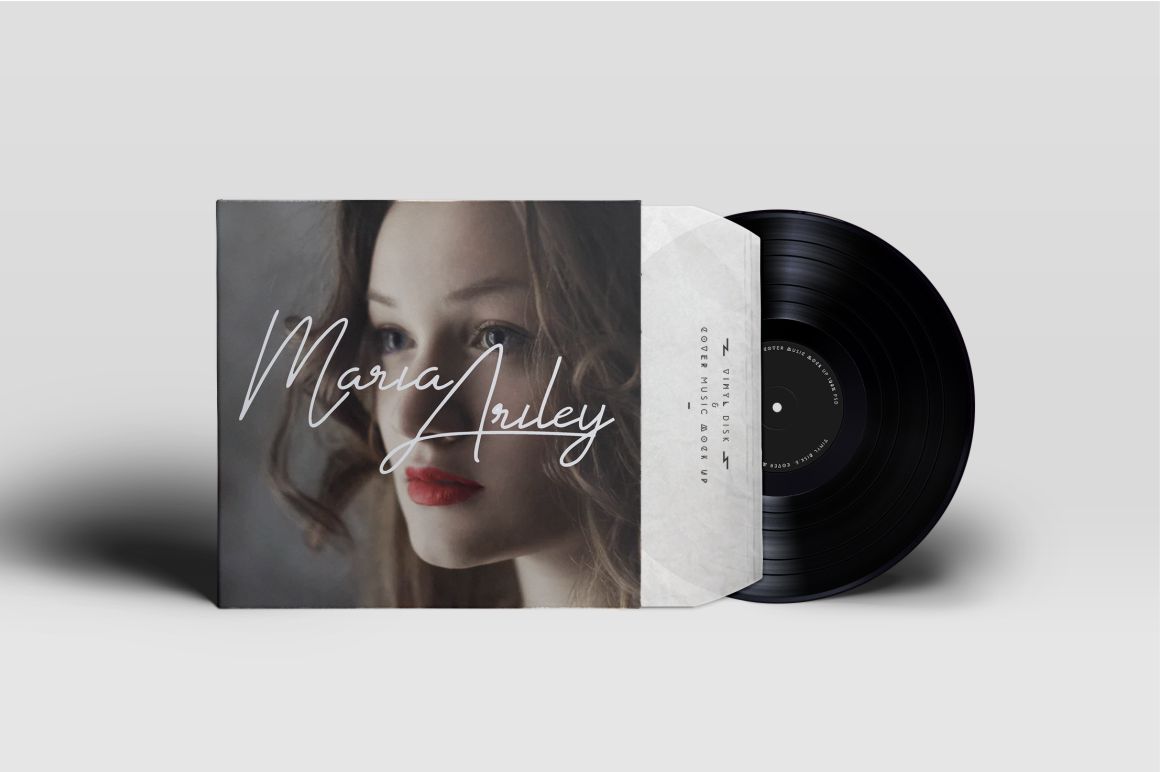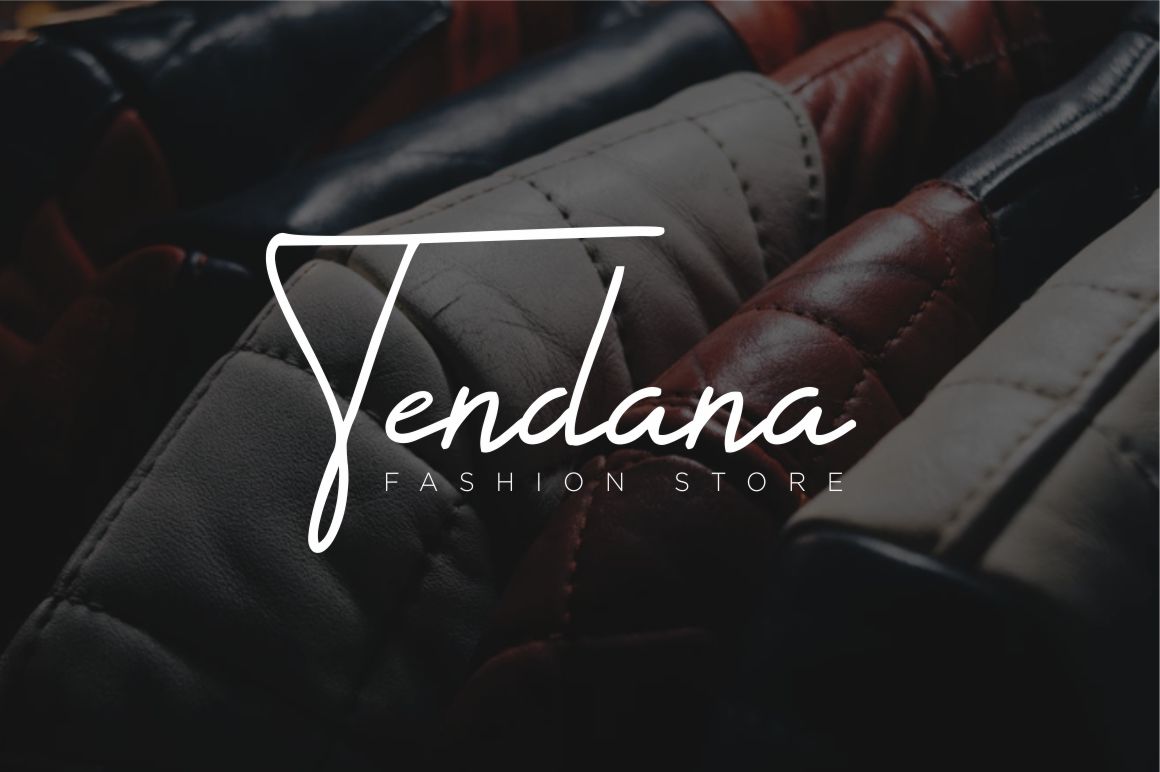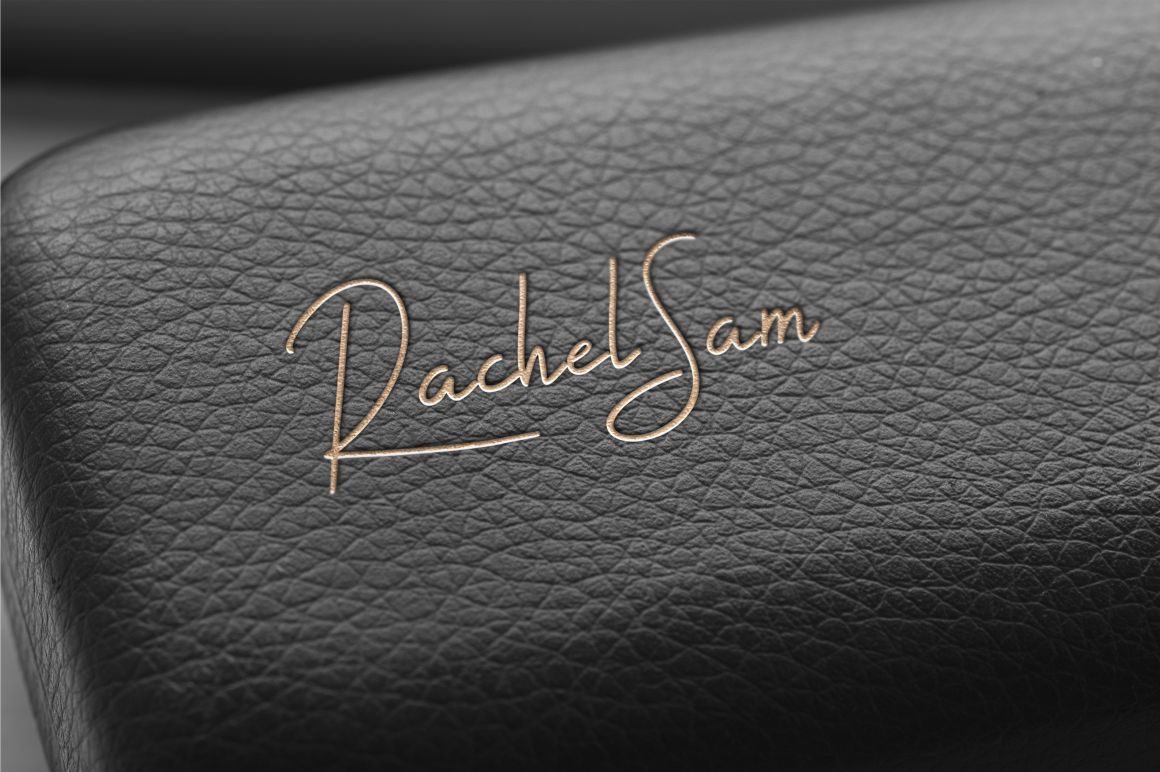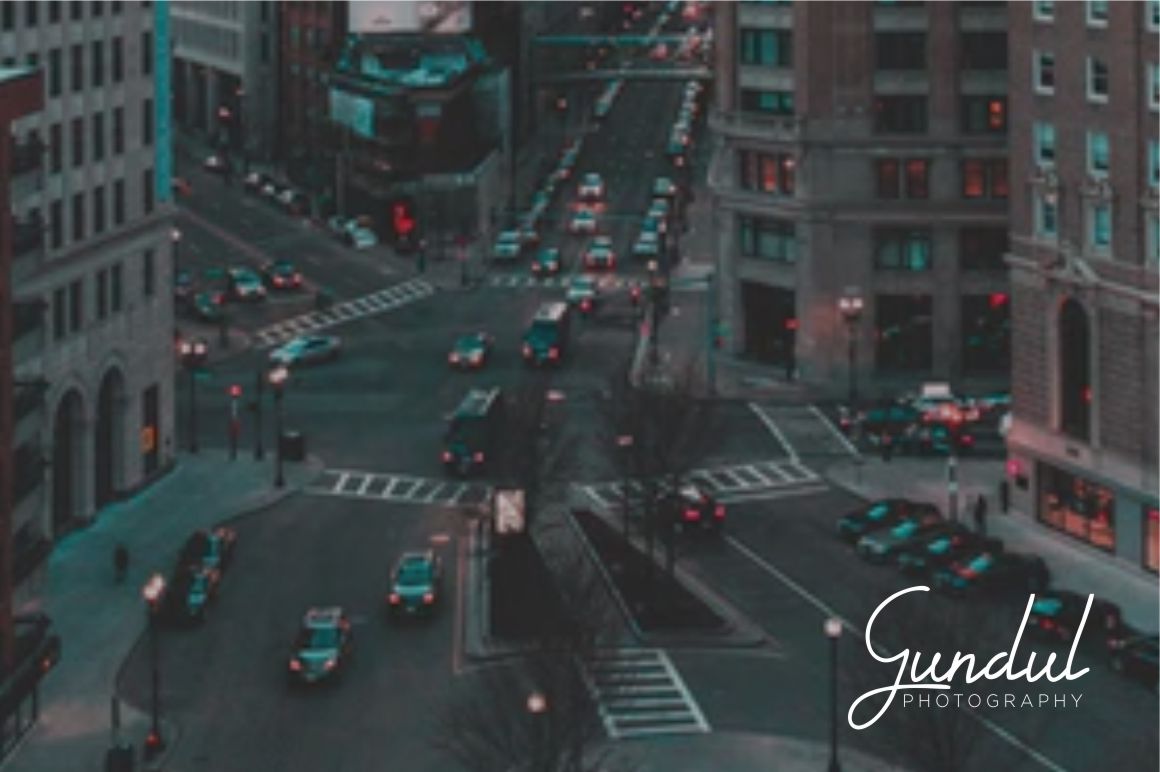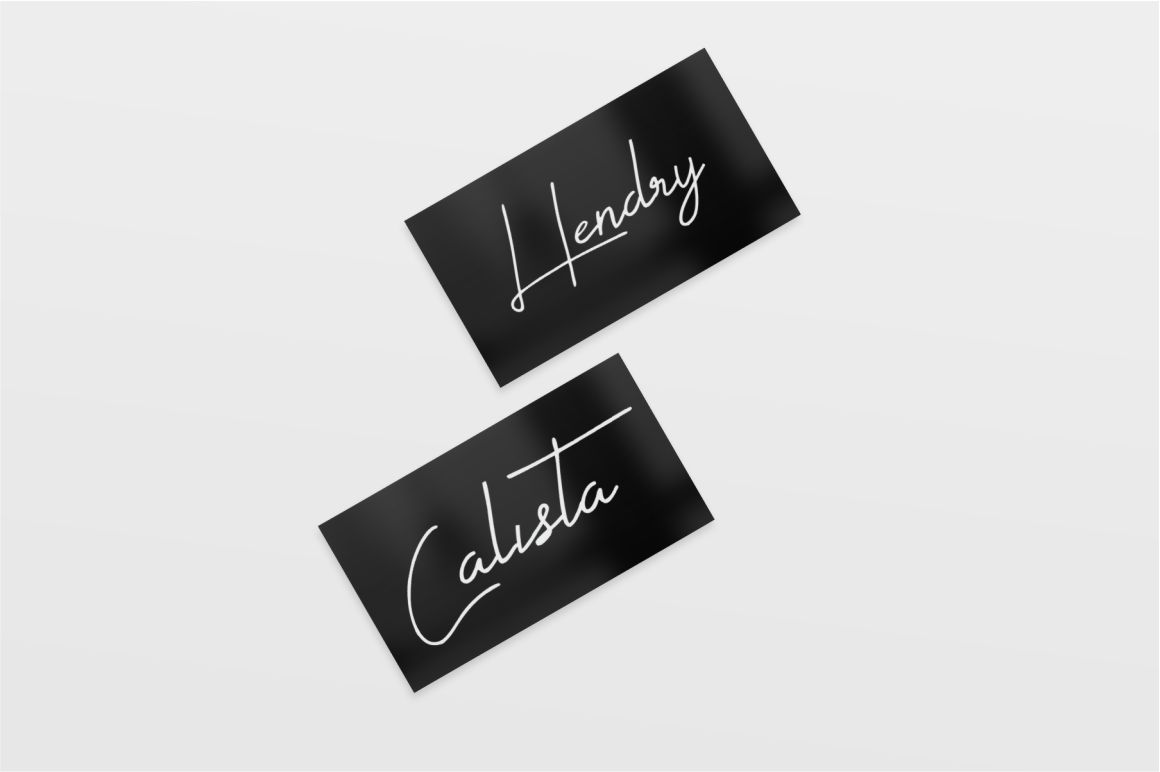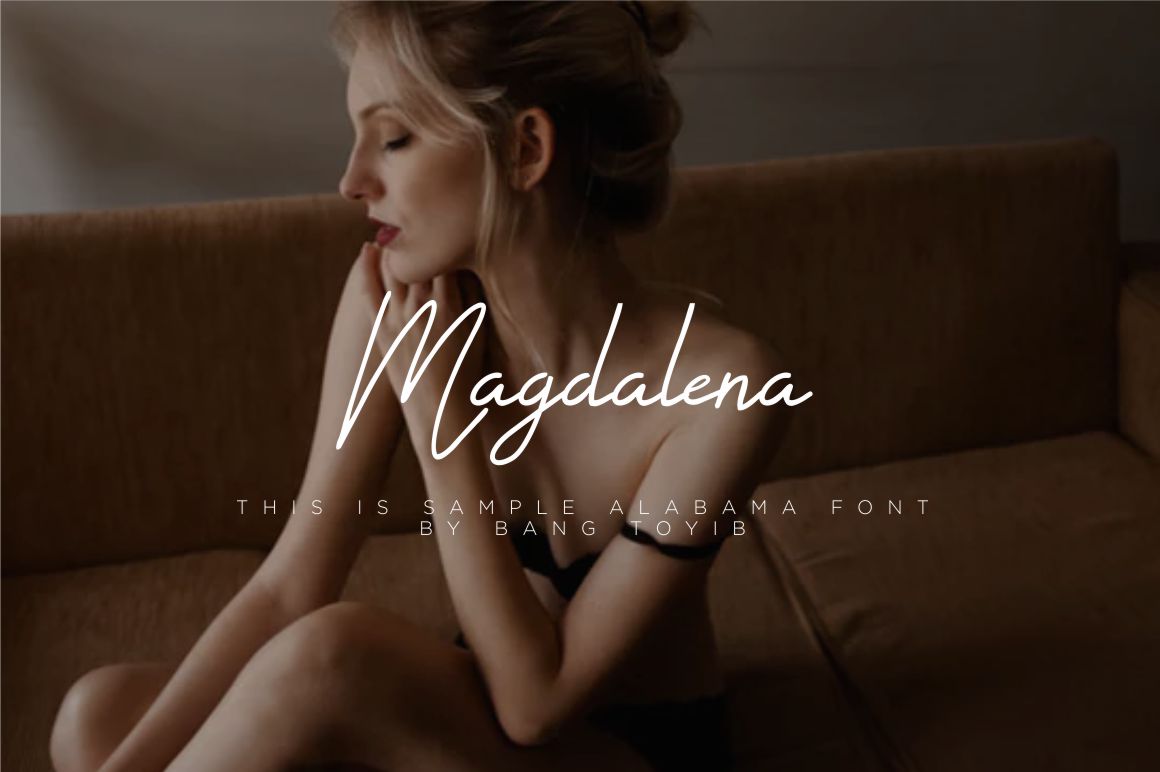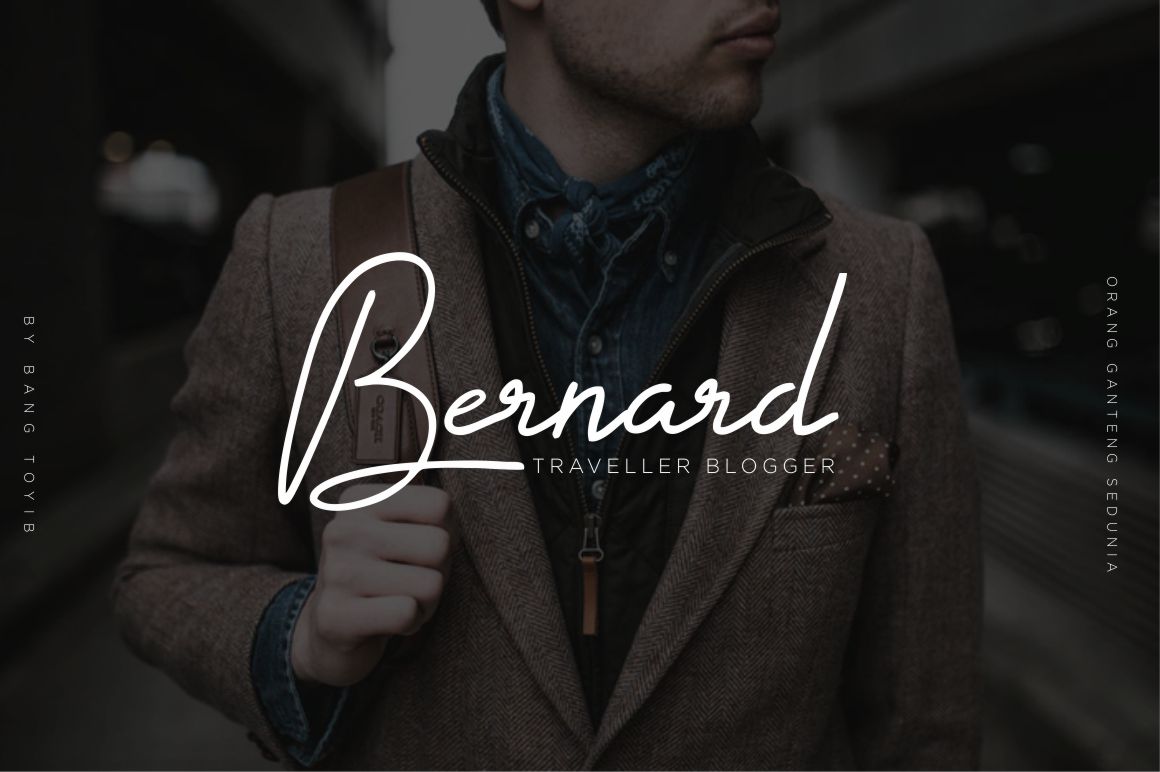
Alabama Font
About Alabama Font
Alabama is a beautiful font, perfect for adding some romance and charm to your designs. This stunning, monoline script functions most strongly as a display or headline font.